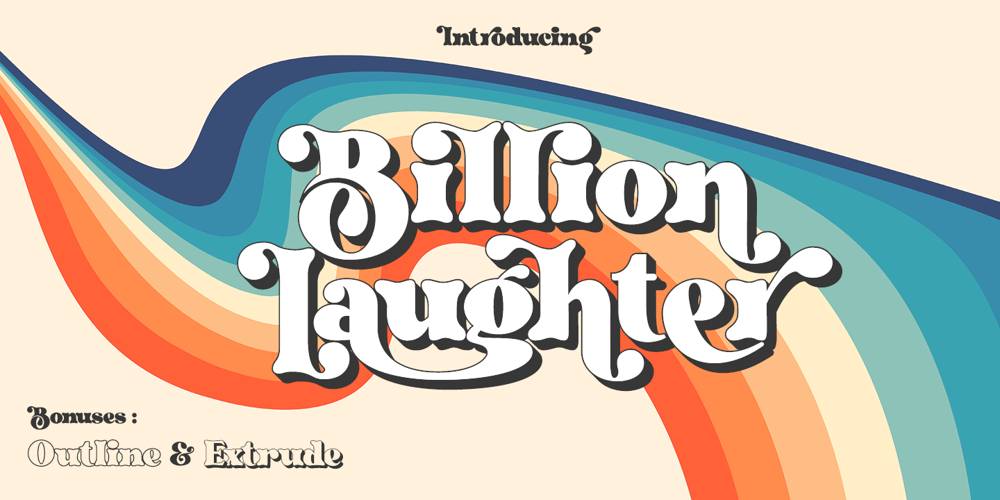
Billion Laughter
Billion Laughter font
Billion Laughter Font Family was designed by Sarwo Edhi Prayitno and published by Haksen. Billion Laughter contains 3 styles and family package options. Billion Laughter is a Bold serif display style with unique anatomy every letter. Provide variant alternates and ligatures make the design letter looks incredible. Honestly it works perfectly for headlines, logos, posters, packaging and much more.Recommended to use in Adobe Illustrator or Adobe Photoshop with opentype feature.Ligatures feature is default setting in Adobe Illustrator or Adobe Photoshop in Uppercase character.So when you want not to use the ligatures.Open glyphs panel : In Adobe Photoshop choose tool Window Character and then please click fi symbol In Adobe Illustrator choose tool Window Type Open Type and then please click fi symbol How to access Alternates Character?Open glyphs panel : In Adobe Photoshop choose tool Window glyphs In Adobe Illustrator choose tool Type glyphs If you have questions, just send me a message and I’m glad to help.Have a great day,Haksen